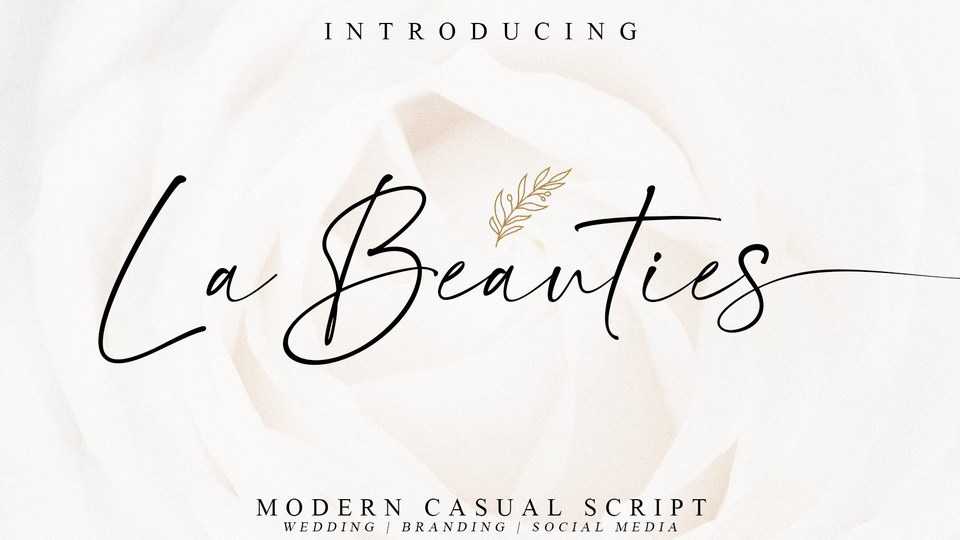
Download La Beauties font, a casual and modern handwritten typeface that comes with a distinctive chic character that adds unique value to the font, perfect for branding, wedding invites cards, and more.